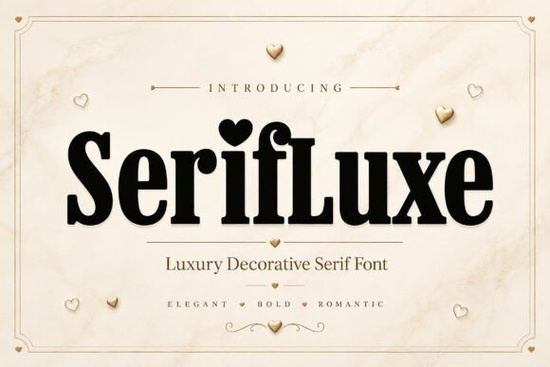
If you're looking for a serif font that feels both timeless and effortlessly stylish, SerifLuxe is a strong choice. It’s designed for projects where elegance matters whether you’re crafting wedding invitations, designing a boutique brand logo, or creating social media content with a soft, romantic vibe. The font stands out with its bold letterforms, gentle curves, and subtle heart accents that add charm without overwhelming the design.
What makes SerifLuxe special?
Unlike many serif fonts that lean too formal or stiff, SerifLuxe strikes a balance between strength and grace. Its letter shapes are confident but not harsh perfect for conveying luxury without feeling cold. The soft details, like delicate serifs and rounded terminals, give it a warm, inviting feel. And those tiny heart motifs? They appear just enough to hint at romance, especially in titles or decorative elements.
It works well across different mediums: print (like packaging and stationery), digital (social posts, website headers), and even on-demand products such as mugs, tote bags, or wall art. Because it’s a premium-looking typeface, it helps your work stand out in crowded spaces like Etsy shops or Instagram feeds.
Where can you use SerifLuxe?
- Fashion editorials – Gives a high-end magazine feel to layouts and captions.
- Wedding invitations and suites – Perfect for save-the-dates, menus, and thank-you cards.
- Beauty and skincare branding – Ideal for labels on perfume bottles, skincare boxes, or product packaging.
- Boutique logos and business branding – Adds a touch of sophistication to small business identities.
- Social media graphics – Great for quotes, announcements, and promotional visuals with a feminine tone.
You’ll find that SerifLuxe adapts well to both minimalist and richly layered designs. On a clean white background, it commands attention. In a textured or pastel backdrop, it still holds its own while adding depth.
How does it compare to other fonts?
If you’ve explored similar options, you might have come across fonts like Spooky Witchy Font, which leans into dramatic, gothic vibes great for Halloween themes or fantasy branding. Or The Rokvella Font, known for its vintage-inspired flair and ornate detailing. While those have their place, SerifLuxe sits in a more refined, modern romantic space less dark, more elegant.
For instance, if you're creating a luxury bridal brand, SerifLuxe brings a softer, more approachable kind of opulence than something overly ornamental. It’s not flashy it’s quietly confident, which often works better for long-term branding.
Is SerifLuxe easy to use?
Yes. The font comes with standard OpenType features, including ligatures and stylistic alternates, so you can customize it slightly without needing advanced software. It supports multiple languages and includes full character sets, making it practical for international use or multilingual projects.
Whether you're using Adobe Illustrator, Canva, or Photoshop, SerifLuxe integrates smoothly. You don’t need to be a typography expert to make it look professional. Just pair it with a simple sans-serif font for body text, and your design will feel balanced and intentional.
Final thoughts
SerifLuxe isn’t just another decorative font it’s a tool for building a visual identity that feels personal, polished, and memorable. If your goal is to create designs that speak to emotion and quality, this font delivers consistently.
- Test it in a few sample projects try a mockup of a wedding invite or a beauty product label.
- Pair it with a neutral or light-weight font for contrast.
- Use the heart accents sparingly to keep the design from feeling too busy.
- Save a style guide with your favorite combinations for future use.